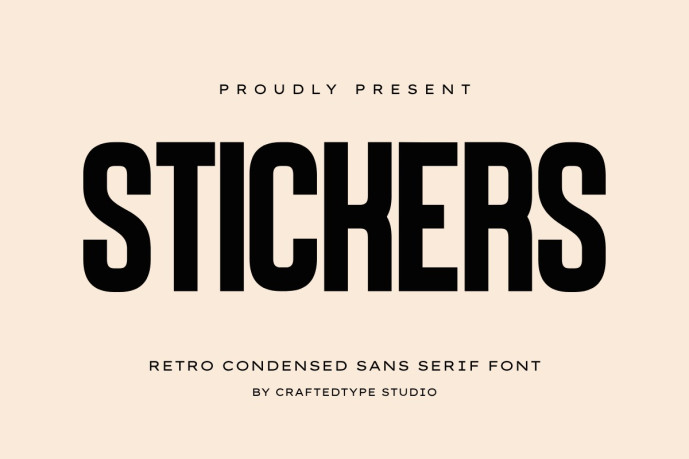
Stickers Font
Stickers is a sleek and stylish retro sans serif font designed for creators who value clean aesthetics and strong visual impact. With its bold, balanced letterforms and elegant spacing, this font is perfect for Print On Demand projects like t-shirts, posters, mugs, and tote bags, as well as for film titles, branding, logos, and modern packaging.
Its versatile style fits both professional and playful designs, making it ideal for crafting projects, minimalist branding, or cinematic visuals. Comes in OTF and TTF formats and fully PUA encoded for easy access to all characters.